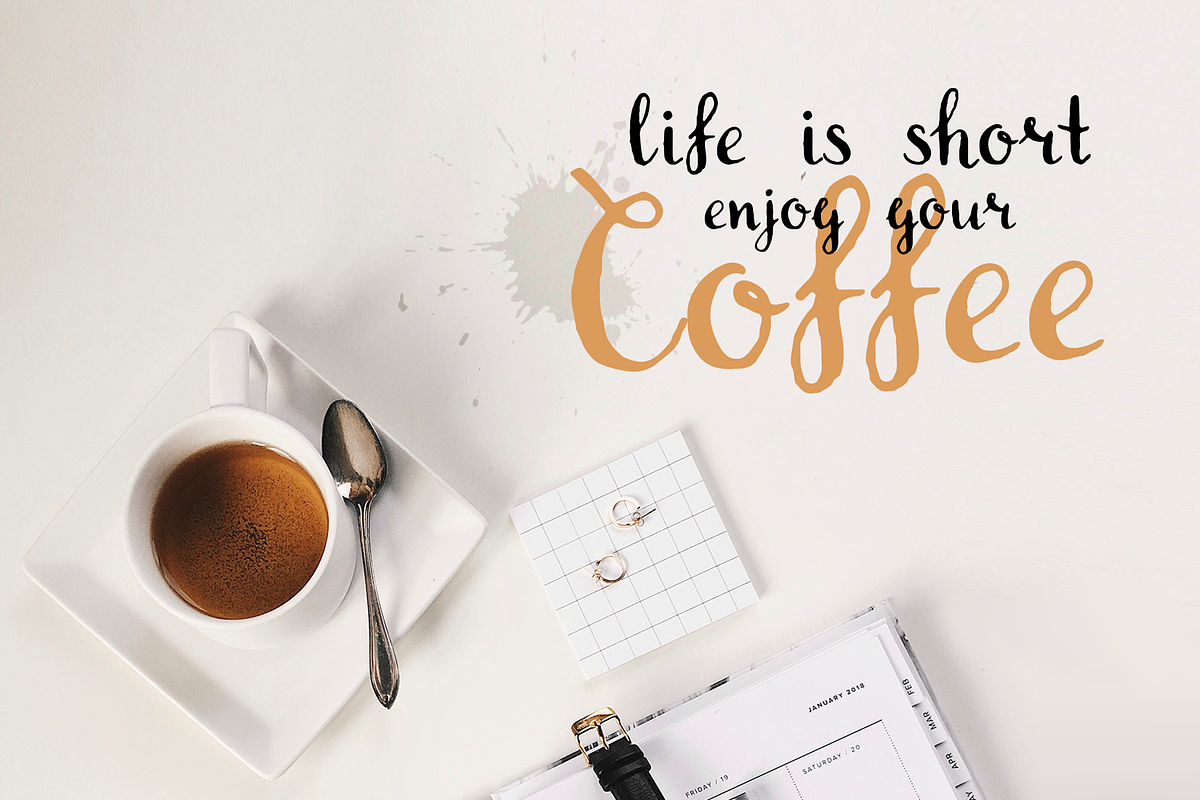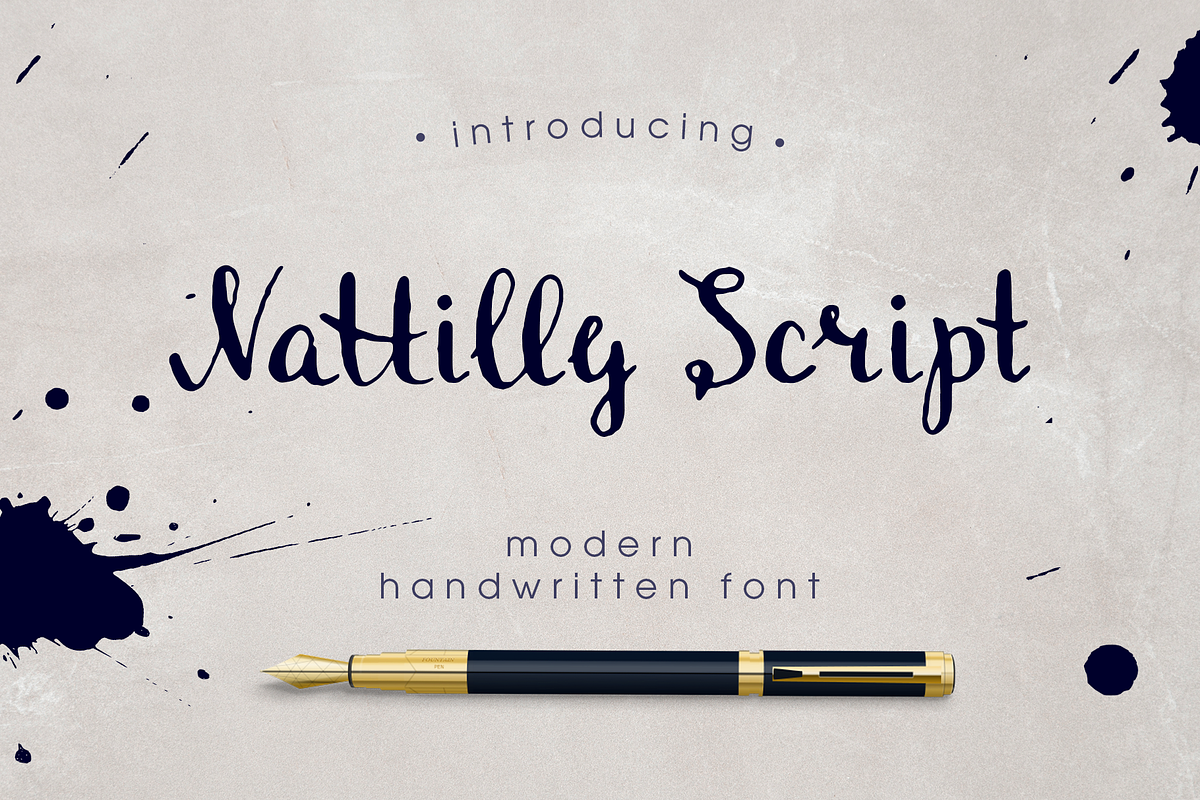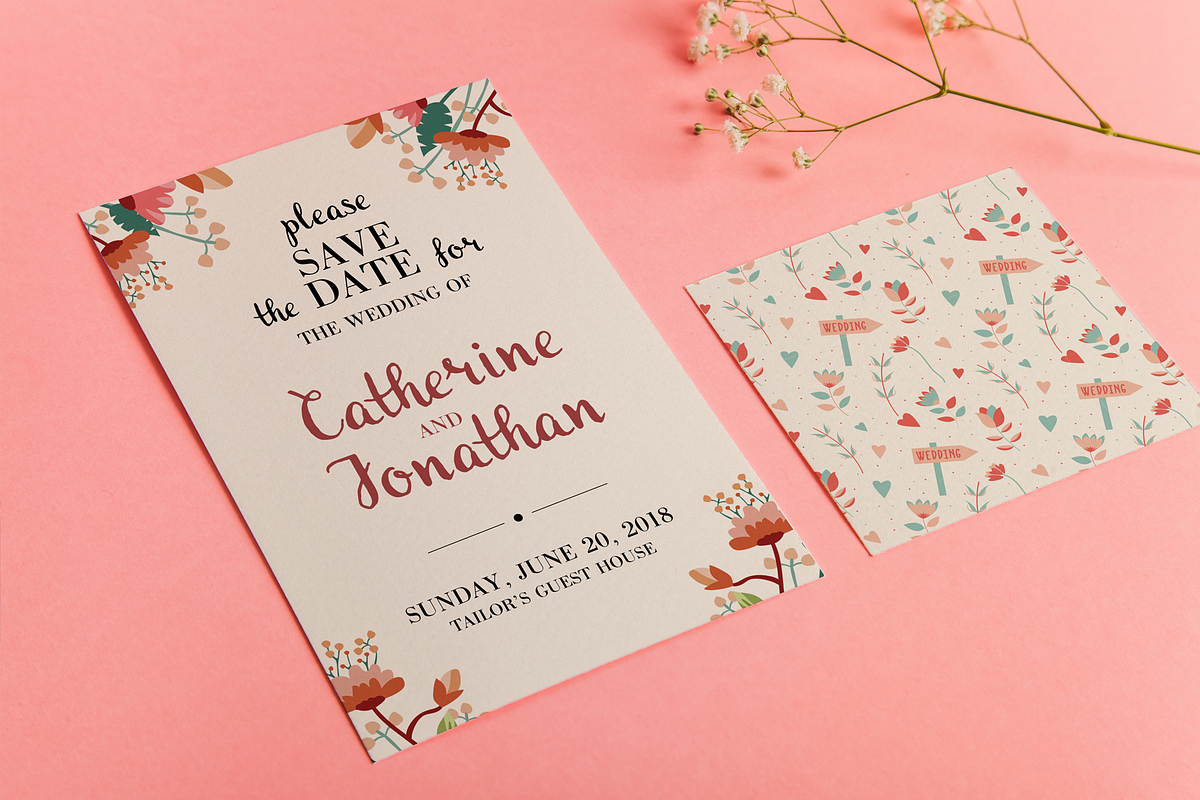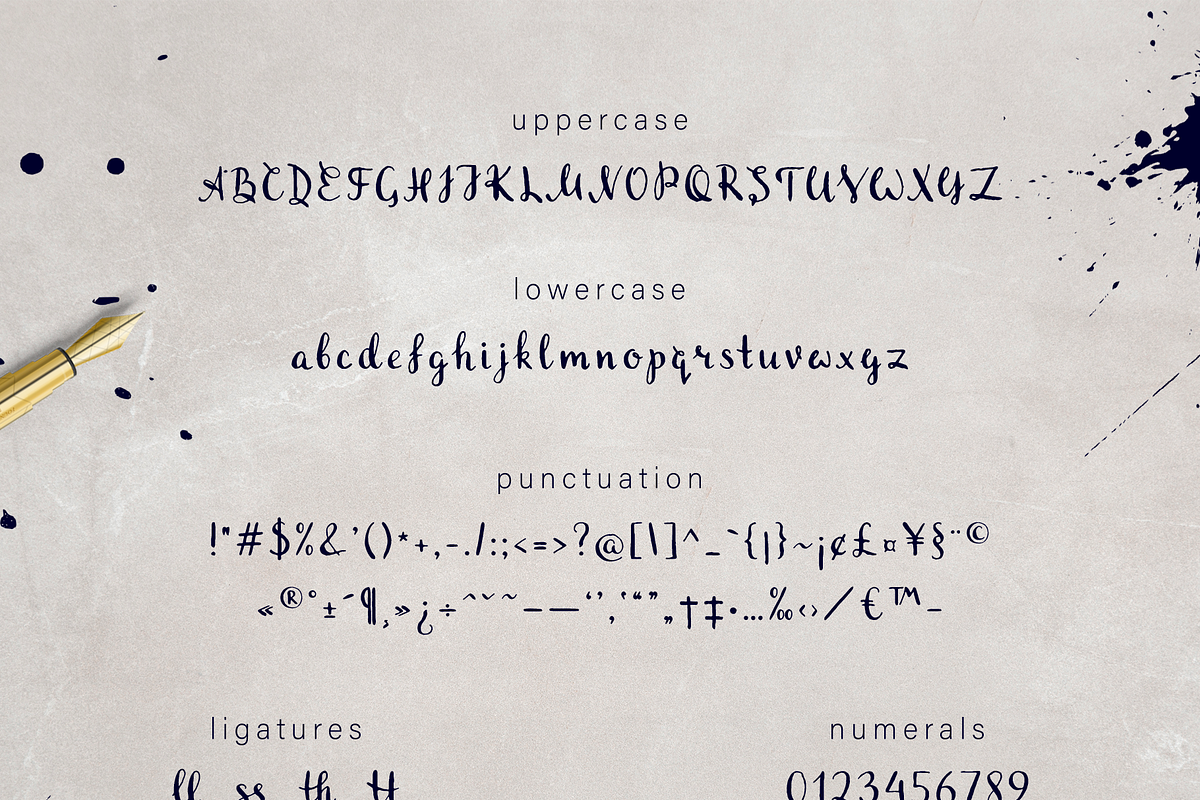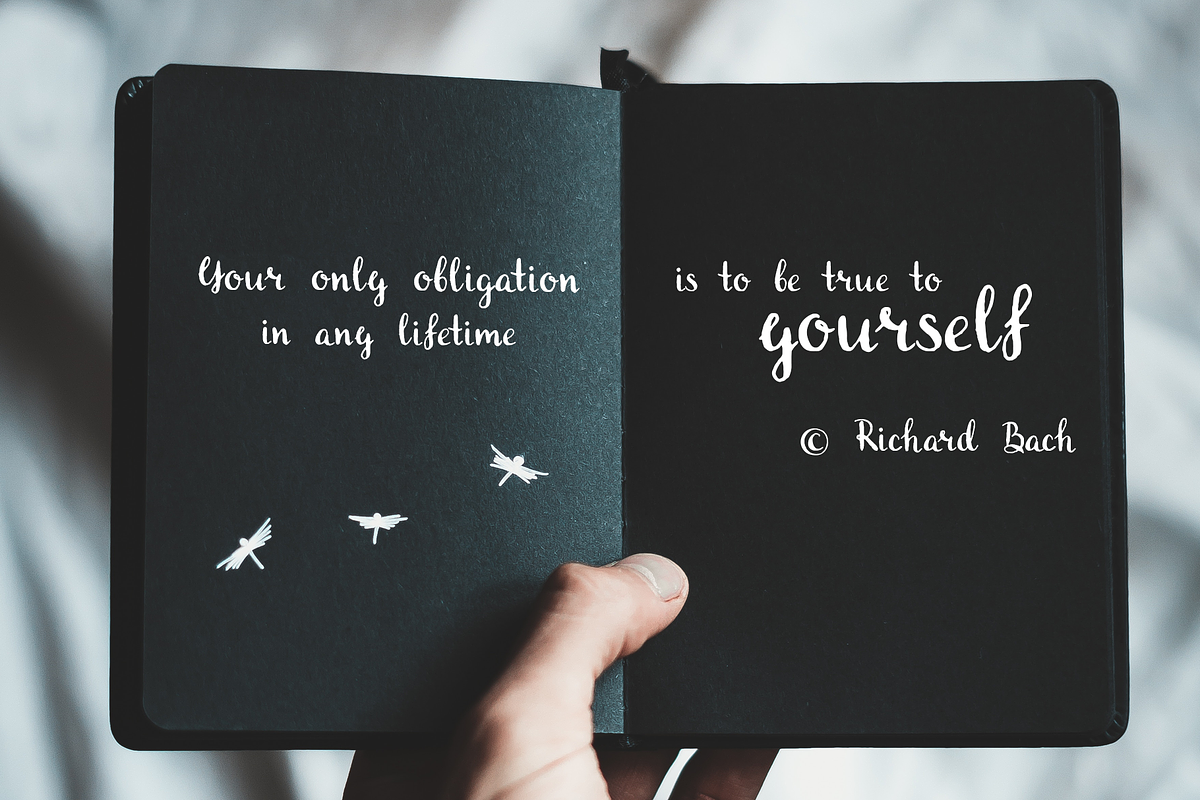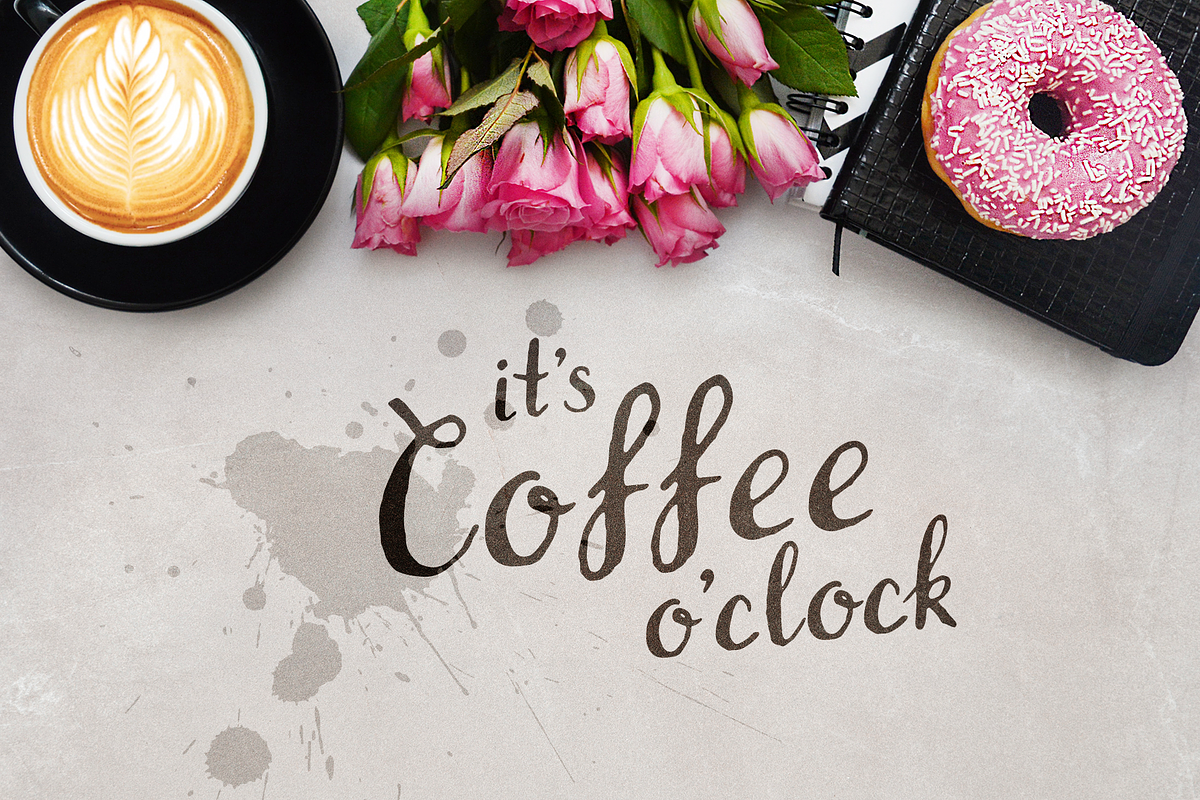
Nattilly Script font
Introducing Nattilly Script font!
The Nattilly font include uppercase, lowercase, numbers, ligatures, punctuation marks and language support (you can be found more details at the preview).
Nattilly font is well suited for quotes, feminine logos, t-shirts, advertising, wedding and invitation design, save the date cards, cooking recipe.
Nattilly Script font by ekmelica fits naturally into Branding, posters, packaging, typography.